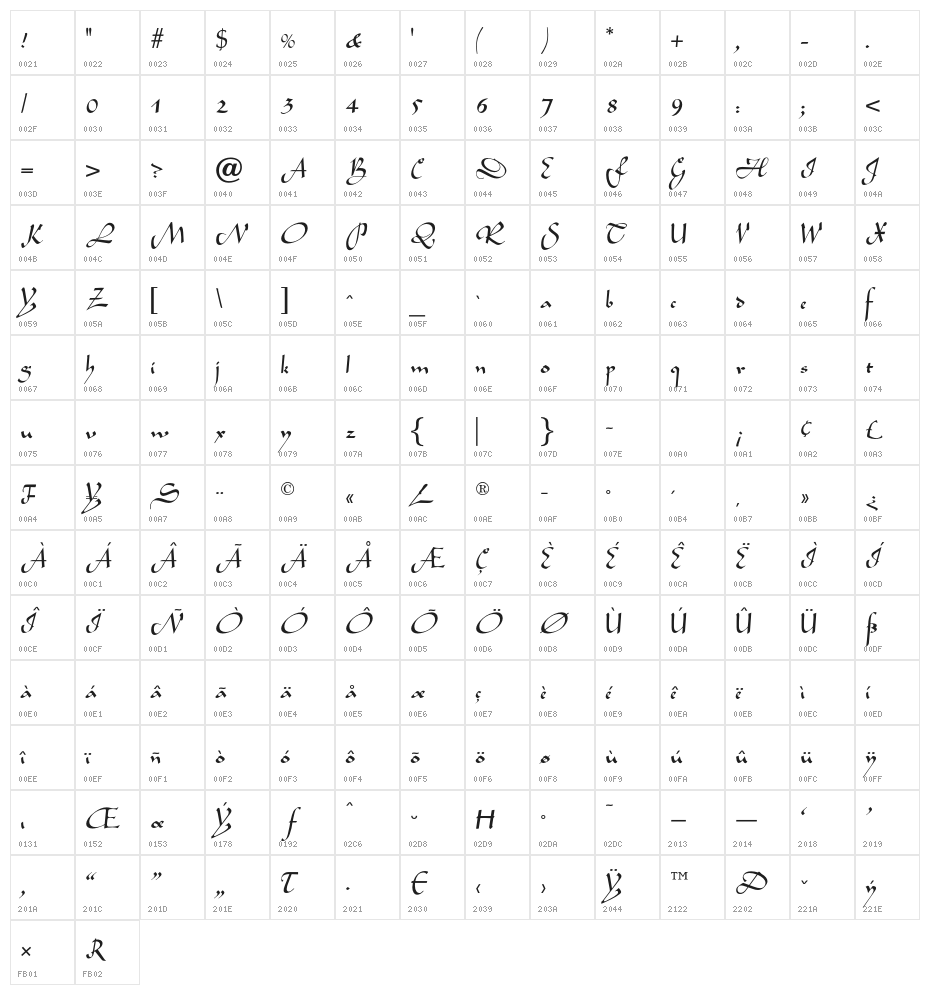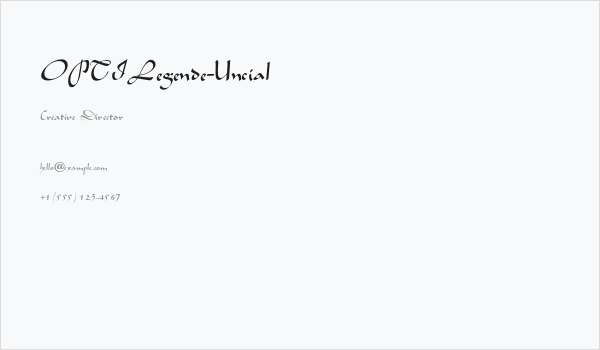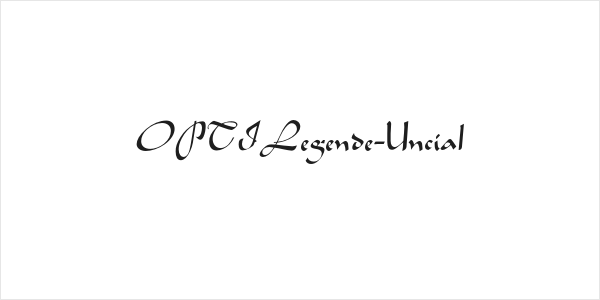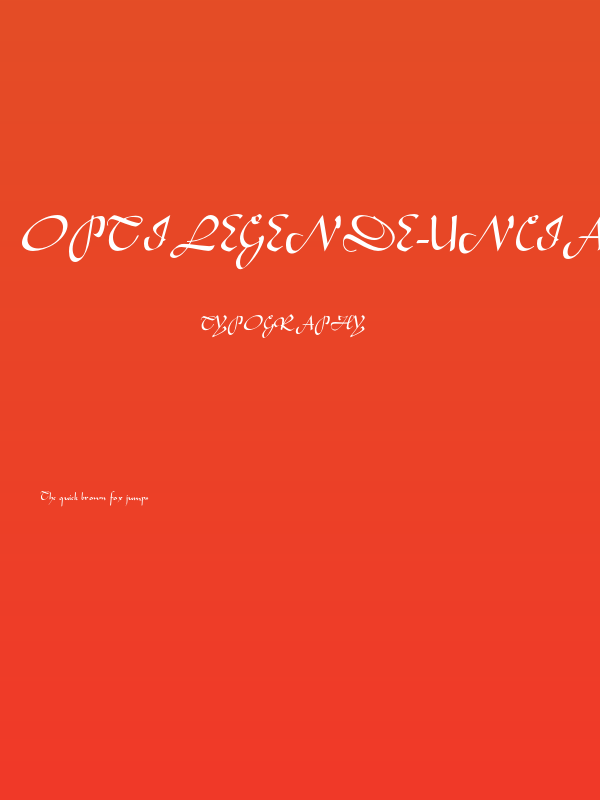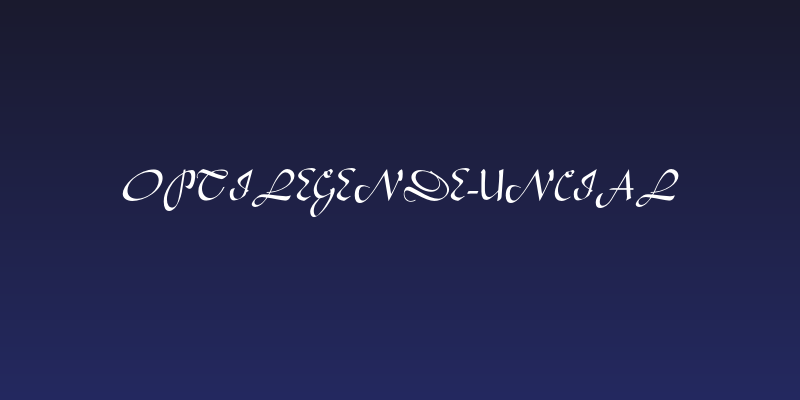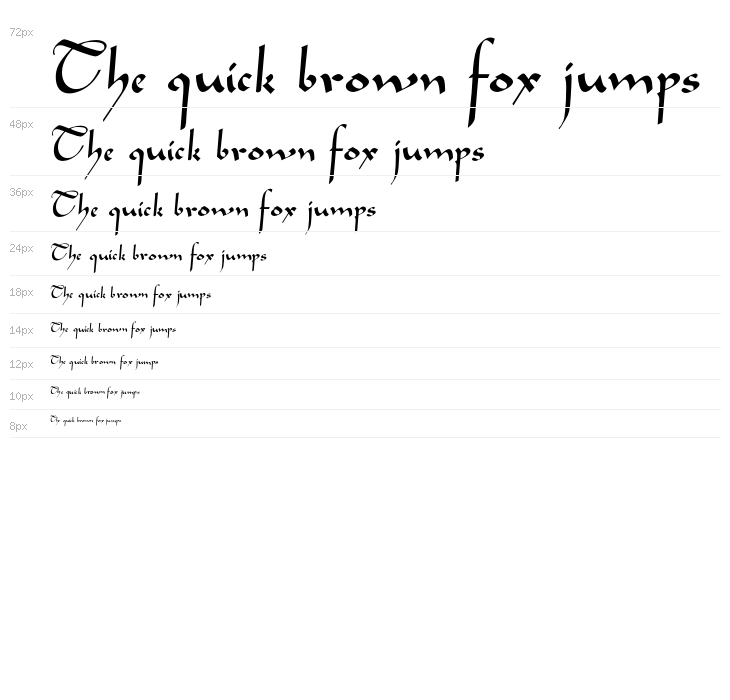
OPTILegende-Uncial Font
OPTILegende-Uncial Description
This font features a distinct uncial style with elegant, flowing curves and a calligraphic flair. The uppercase letters are characterized by their ornate and sweeping strokes, giving a sense of historical and artistic richness. The lowercase letters maintain a consistent style, with some characters exhibiting unique flourishes that add to the overall aesthetic. Numerals are designed with a similar attention to detail, ensuring they complement the letterforms. The special characters are crafted to match the font's decorative nature, making it suitable for projects that require a touch of sophistication and tradition.